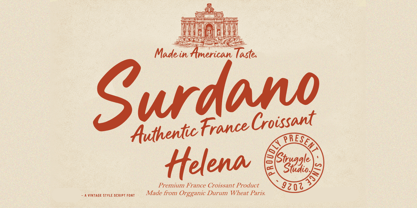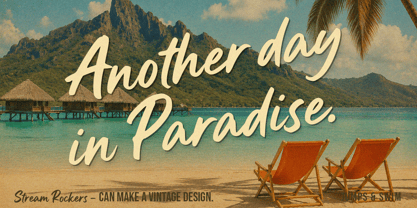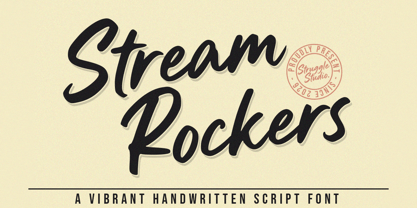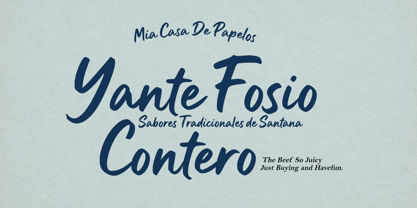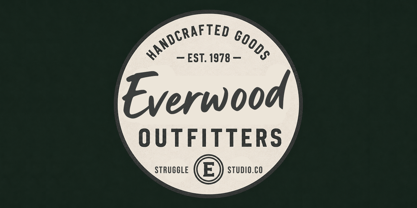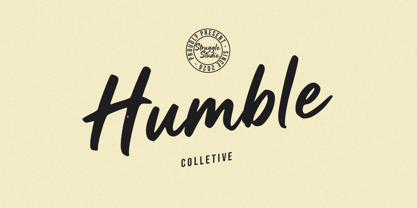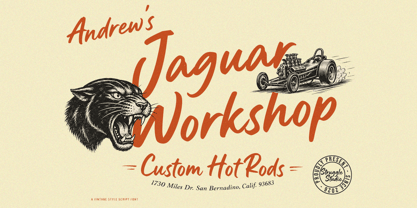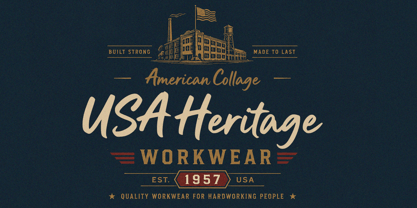
Stream Rockers
La familia tipográfica Stream Rockers fue diseñada por Andri Kurniawan y publicada por Struggle Studio. Stream Rockers contiene 1 estilos. Más información sobre esta familia
Stream Rockers – A Vibrant Handwritten Script Font
Unveiling Stream Rockers, a dynamic handwritten script font brought to you by Struggle Studio. This typeface perfectly blends the raw energy of casual handwriting with a smooth, flowing rhythm. With its bold strokes and natural connections, it brings an authentic, human touch to any design.
Stream Rockers is highly versatile and ideal for branding, logotypes, merchandise, apparel design, social media graphics, quote posts, and packaging. Give your projects a bold, expressive, and unforgettable look with this stylish script!
Elevate your creative designs with Stream Rockers, a beautifully crafted handwritten script font by Struggle Studio. This font delivers a bold yet casual aesthetic that flows effortlessly across the page.